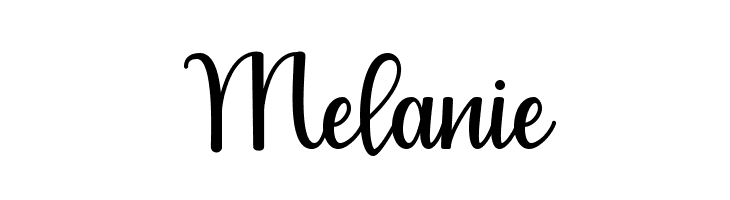
A playful, handwritten font with fluid, connected strokes and a casual style.
A flowing, cursive script font with elegant, sweeping strokes.
A playful, hand-drawn font with bold, irregular strokes.
A modern, fragmented font with a digital, grid-like appearance.
A playful, handwritten font with smooth, flowing strokes and a casual appearance.
A modern, ultra-thin, and elongated font with a minimalist design.
A romantic, cursive script with elegant, flowing lines.
A whimsical, handwritten-style font with flowing, interconnected letterforms.
A cursive, handwritten font with elegant, flowing strokes and dynamic contrast.
A playful, handwritten font with rounded edges and a casual, friendly style.
Среди последних фаворитов — Kayana, Gayatri Script, Berpa, Gridshift and DBE-Rigel. Они сочетают ясность и индивидуальность, хорошо подходят для тех‑брендов, редакционных макетов и социальных визуалов.